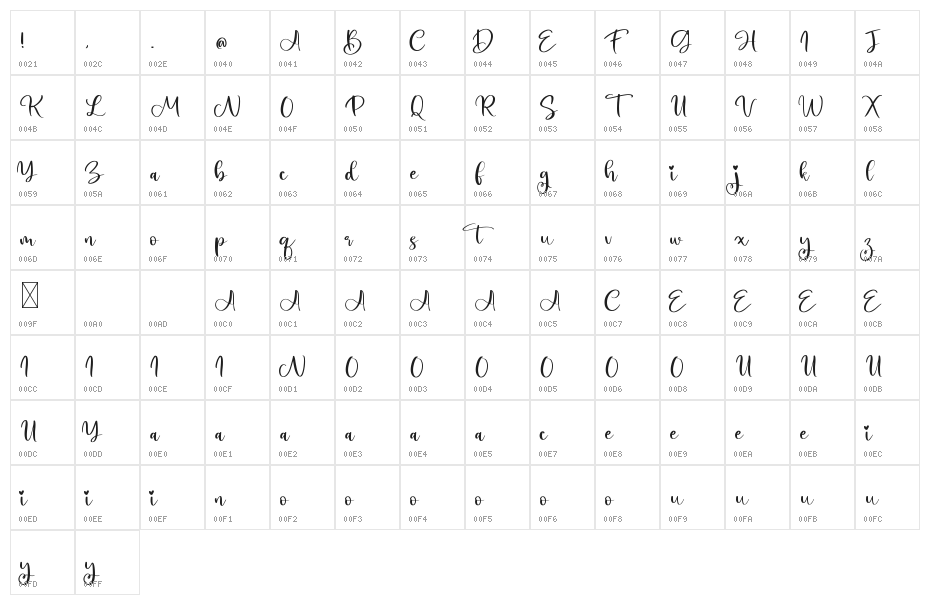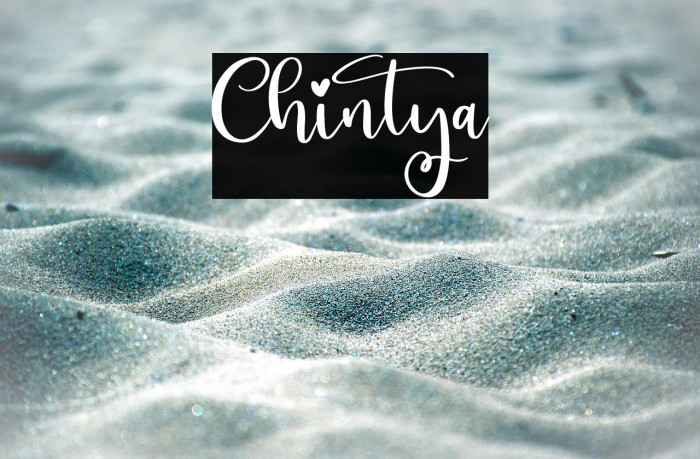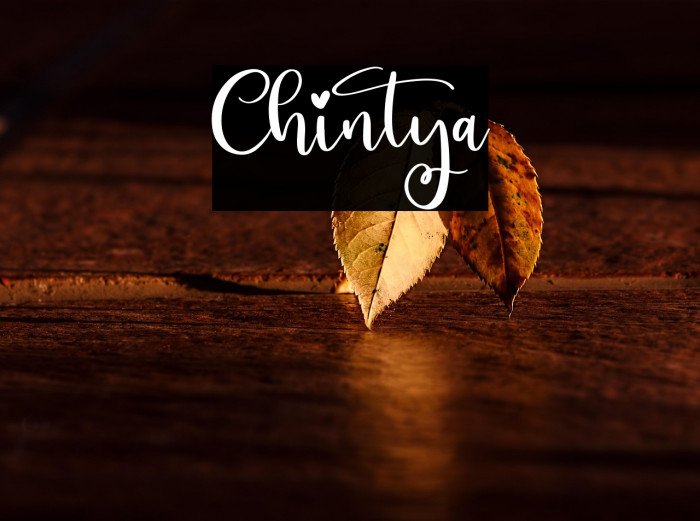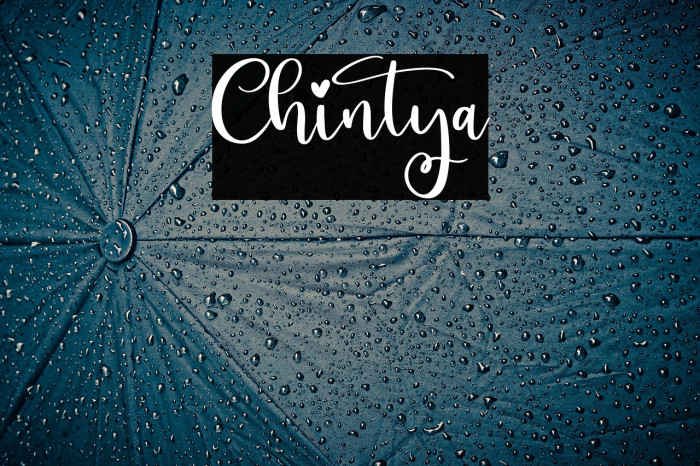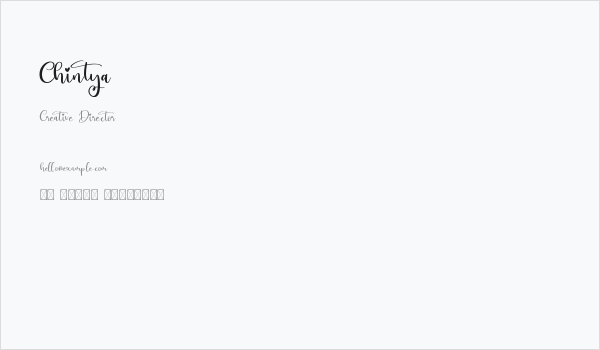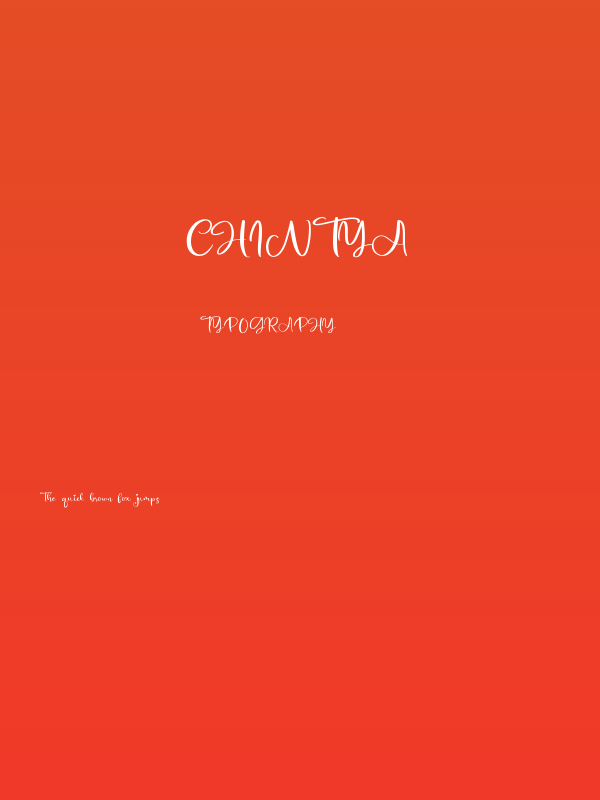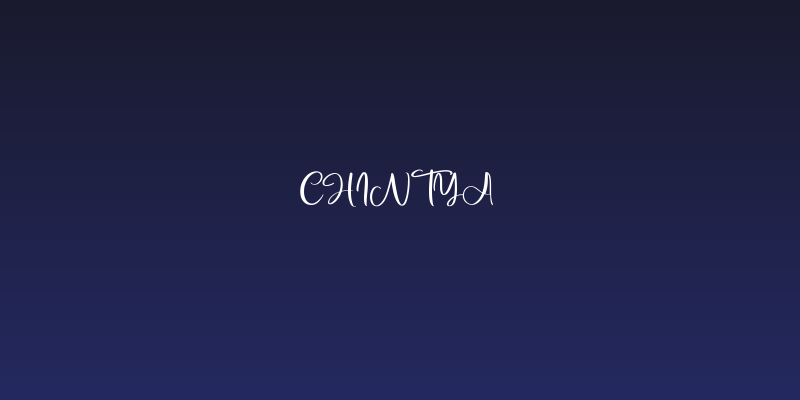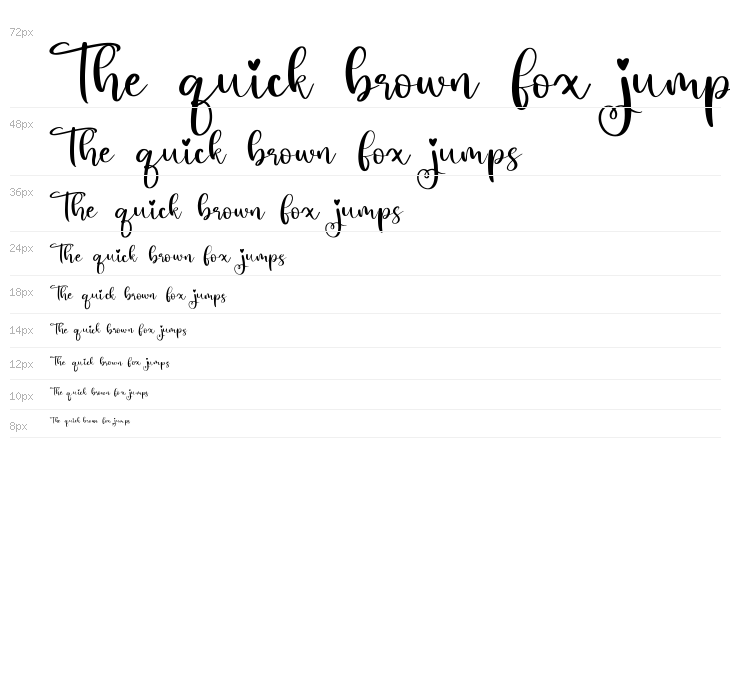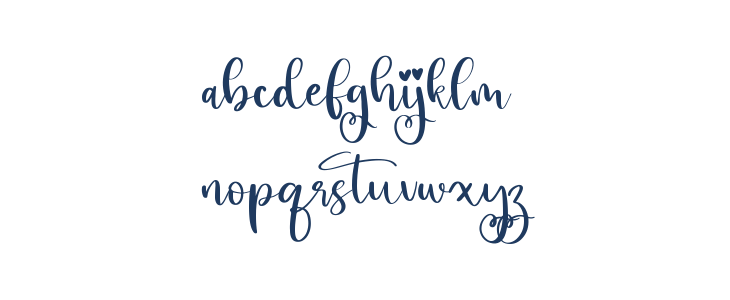
Chintya Font
Chintya Description
This font features an elegant and flowing script style, characterized by its smooth, cursive letterforms that exude a sense of sophistication and grace. The uppercase letters are bold and sweeping, with intricate loops and flourishes that add a decorative touch. The lowercase letters maintain a consistent flow, with some characters featuring unique heart-shaped accents, enhancing its romantic and whimsical appeal. The font's overall appearance is both stylish and playful, making it suitable for creative and expressive design projects.
| Proposed Projects | Ideal for wedding invitations, greeting cards, branding, and logo design, where a touch of elegance and personality is desired. |